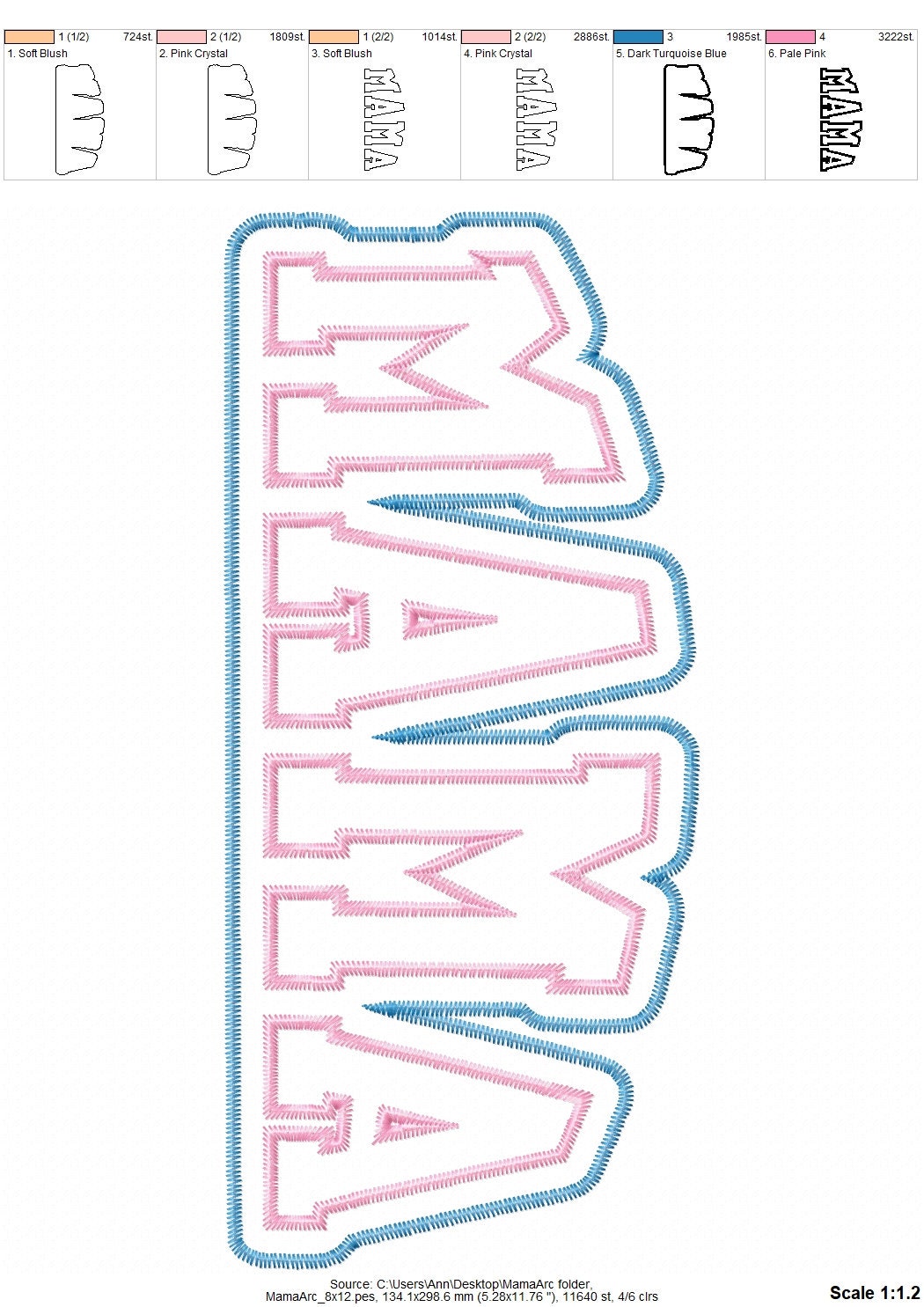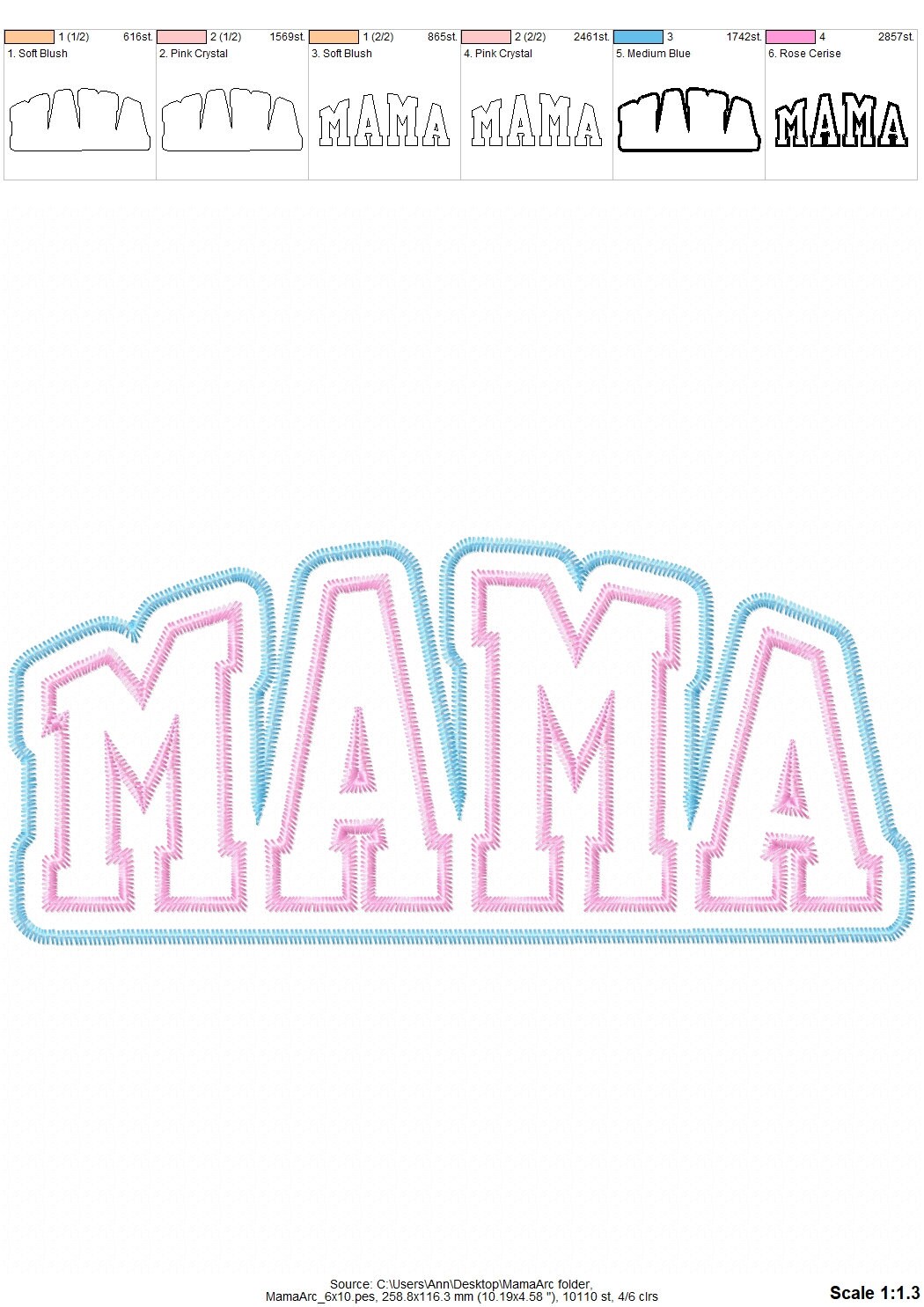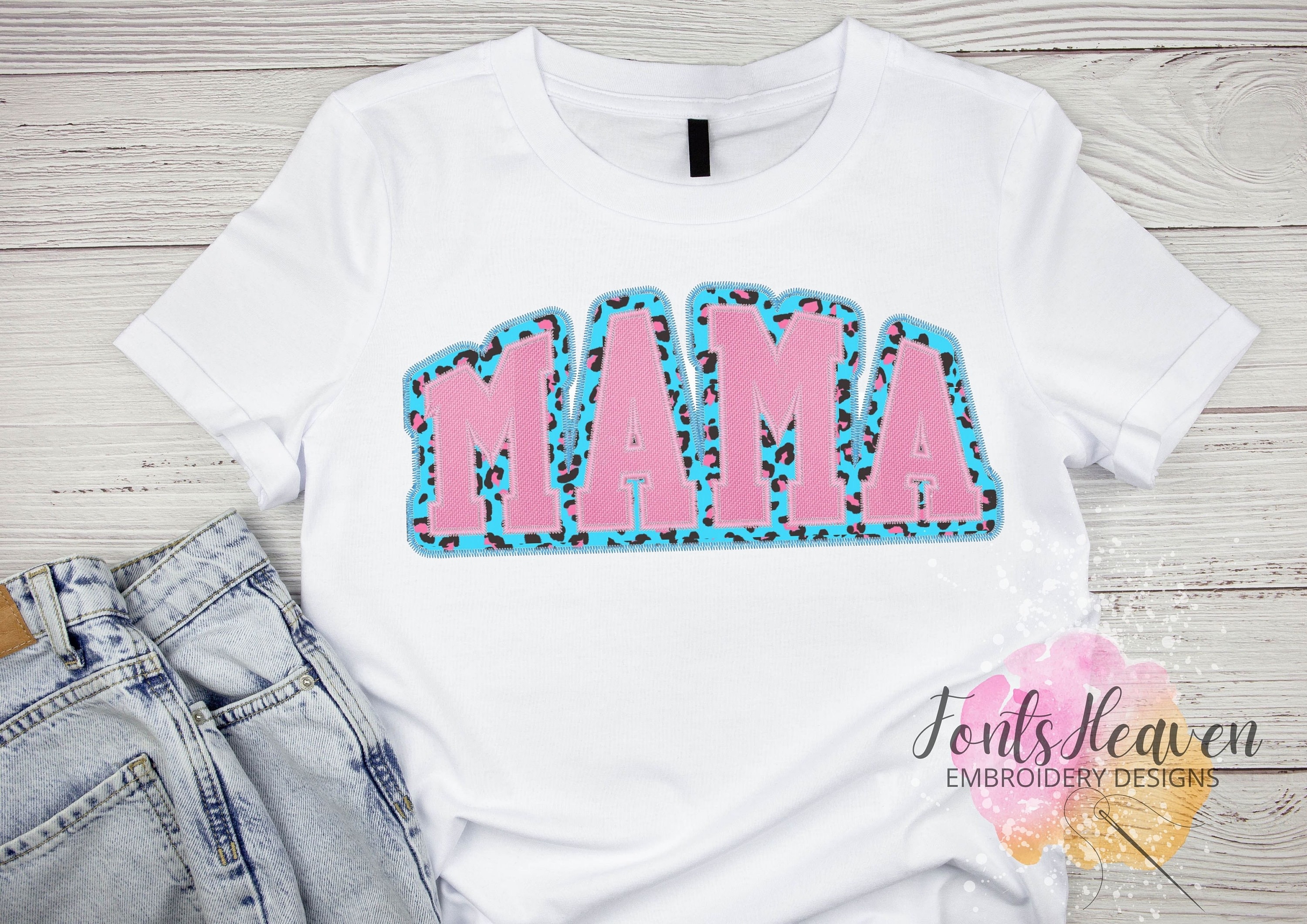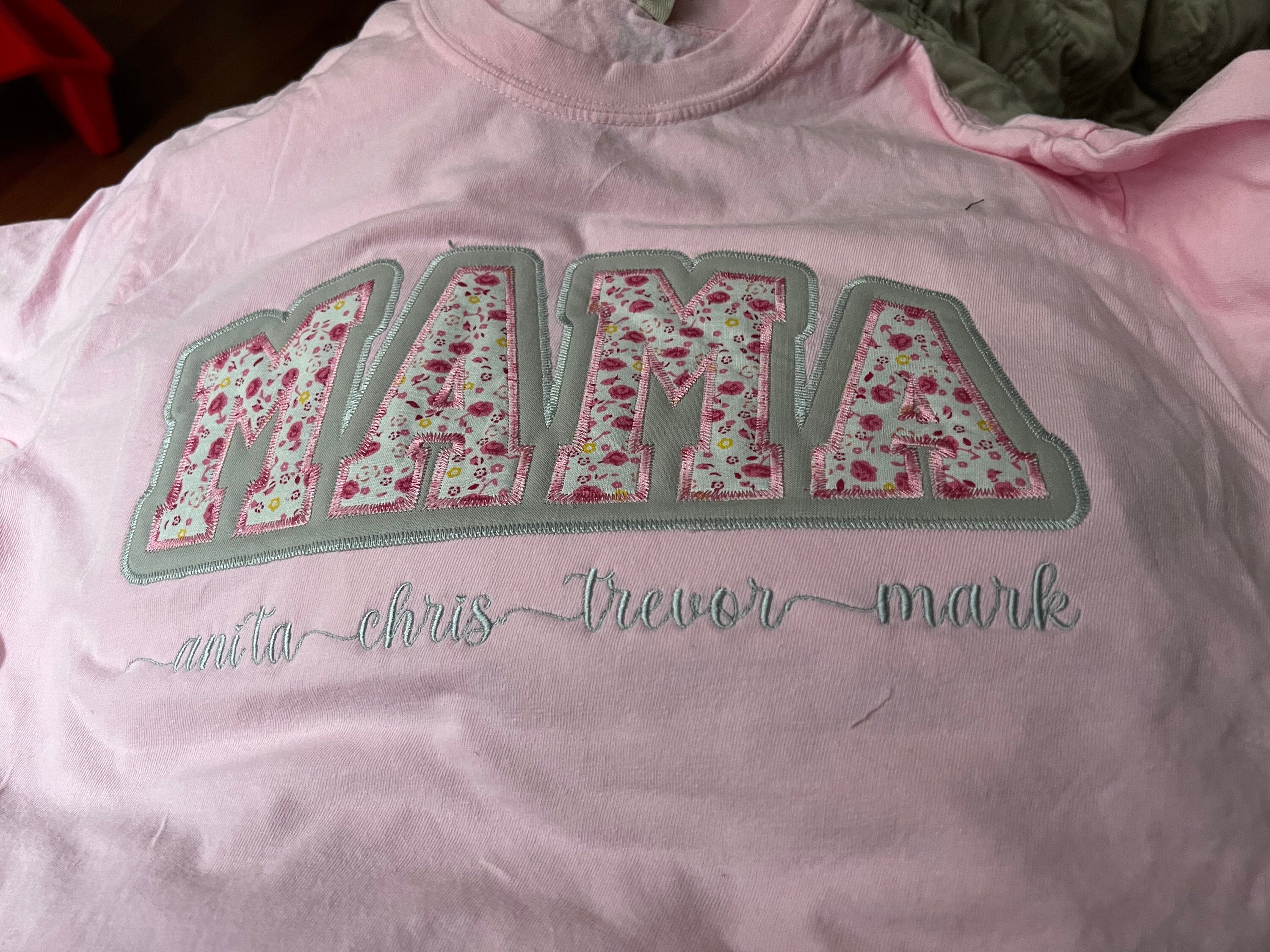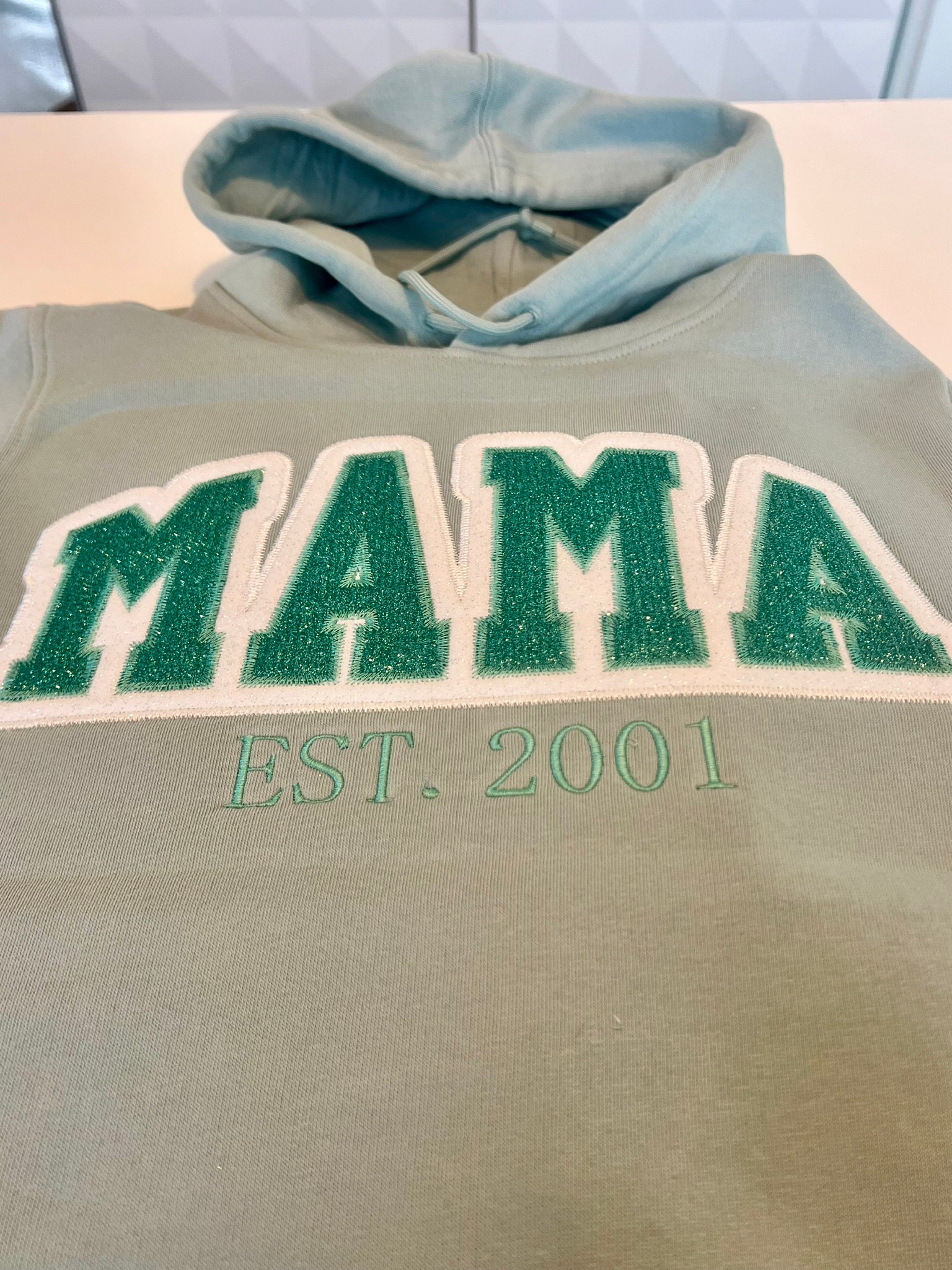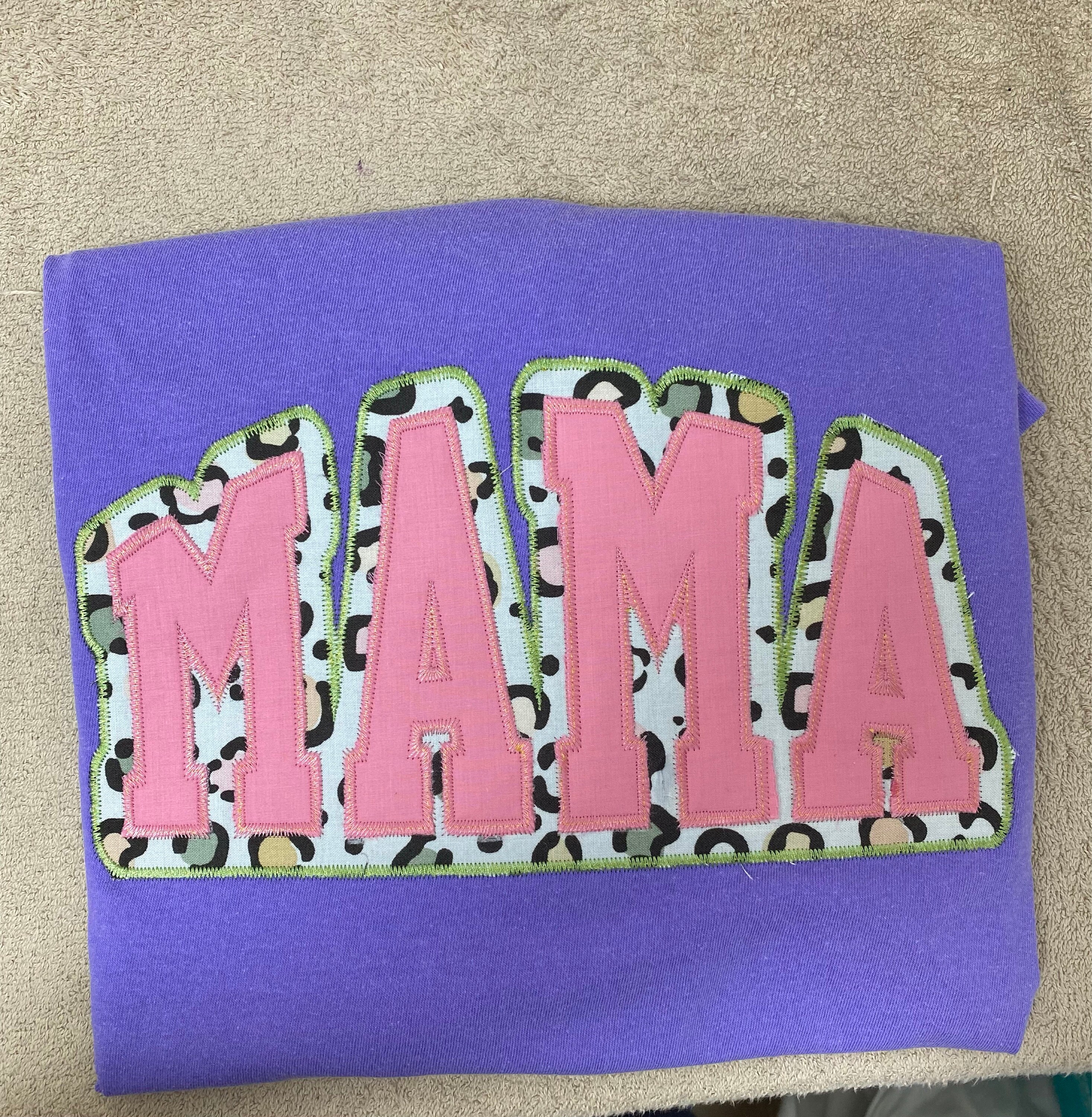
MAMA in Two Layer double Applique Machine Embroidery Designs Zigzag Edge outline Block Athletic Font Mother's Day Gift idea hoop 6x10, 8x12
This really cute applique embroidery design with two layers of fabric and a zigzag edge stitch will make you feel like nothing else matters.
Looks great! stitching is good quality.
Beautiful design! Stitches out very nicely. The only thing I gave four out of five ⭐️ is the zigzag stitch around the appliqué. I had to use my scissors to cut away the glitter heat transfer foil instead of ripping it off easily. With a satin stitch, it would be 6 🌟